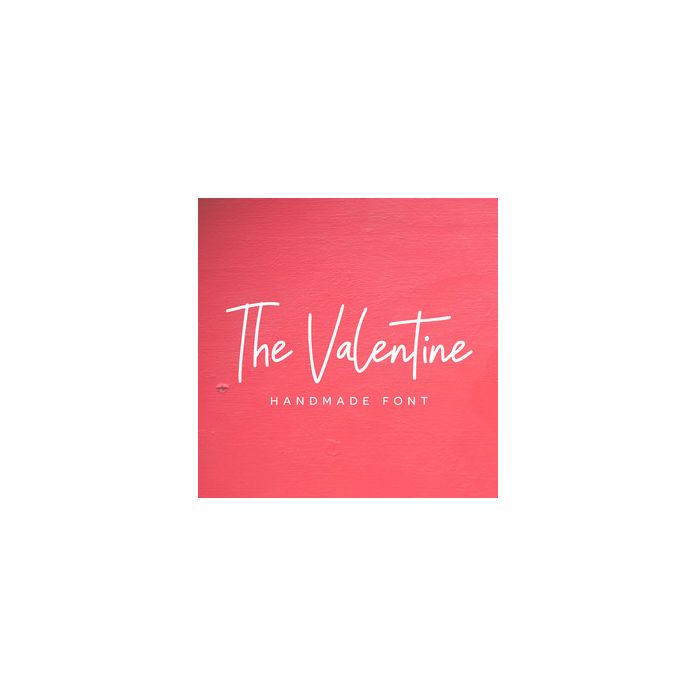
This font includes 195 glyphs. The Valentine is a hearthrob of a font. Full of fun curves and dips within the script you're sure to drive your audience wild! Plus it comes with full international language support.